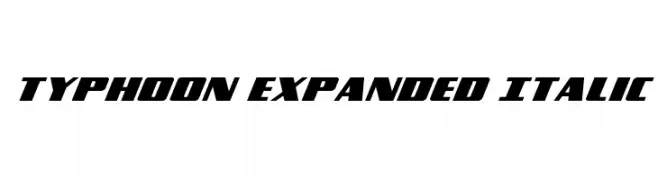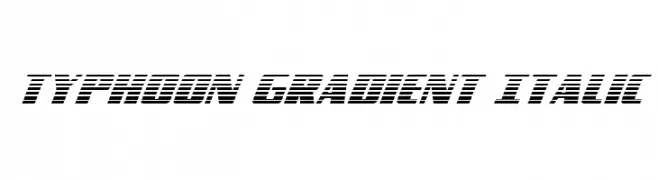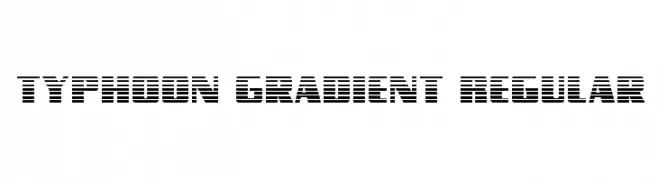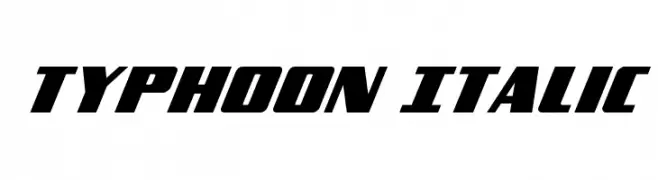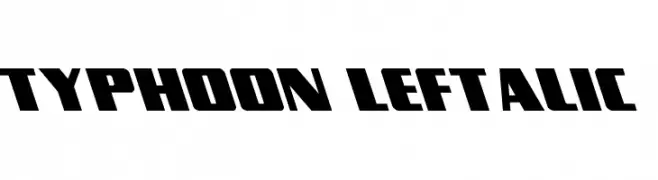
A bold, expanded, and italic font with a modern, dynamic style.
A bold, italicized font with a gradient line effect, exuding energy and modernity.
A modern, striped font with a dynamic gradient effect.
A bold, italicized font with a modern, dynamic design.
A bold, italicized font with angular lines and a futuristic look.
A bold, geometric font with a futuristic and industrial style.
A bold, left-leaning italic font with a dynamic and angular style.
A bold, geometric font with thick strokes and a modern, impactful design.
A bold, dynamic font with a slanted, energetic style.